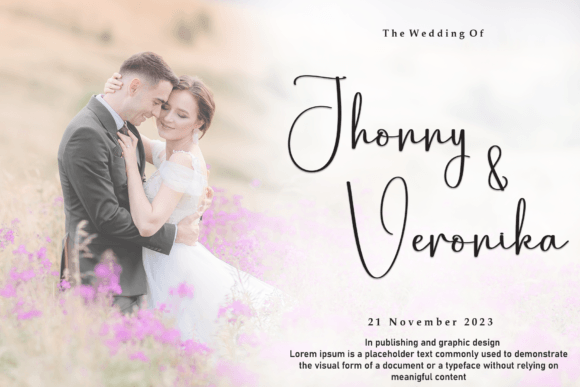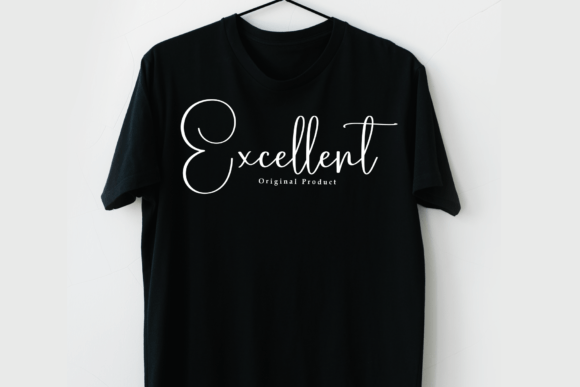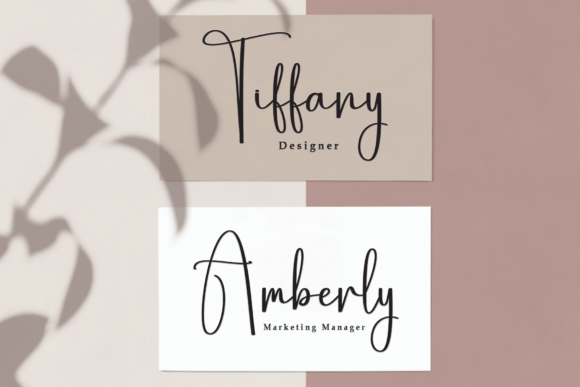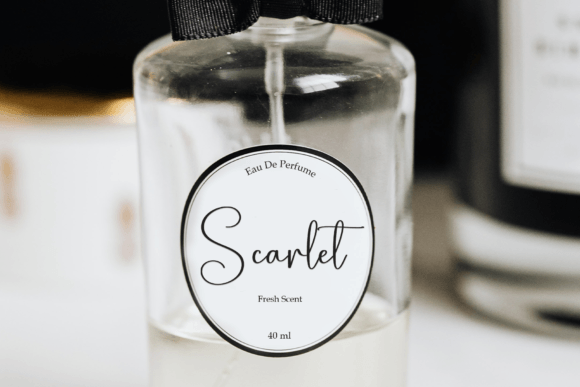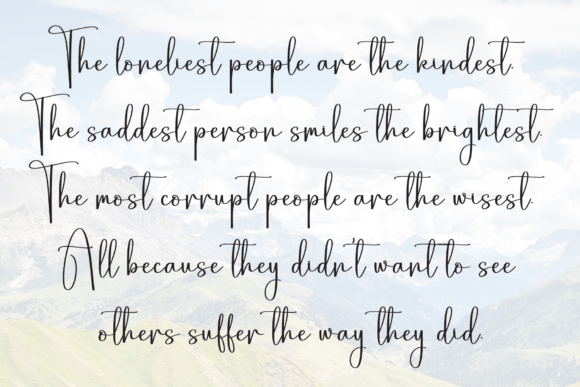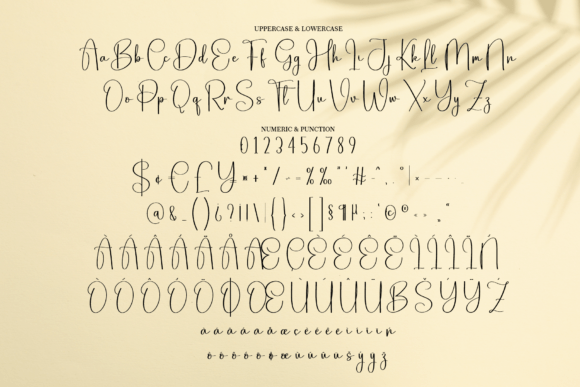
The Perfect Signature: Elevating Your Design with the Best Signature Font
Have you ever stared at a blank page, trying to find the perfect font to match your creative vision? That’s where the magic happens – and for designers, finding the right font can be a game-changer. For me, it was the moment I stumbled upon the Best Signature Font, and I knew I had found my new go-to.
This elegant and sophisticated font is designed to emulate the look and feel of a personal signature, adding a touch of professionalism and refinement to any project. Whether you’re creating logos, invitations, or branding materials, the Best Signature Font exudes confidence and class, making it a valuable addition to any designer’s toolkit.
Key Features of “Best Signature Font”
- Unique characteristic: Handwritten, cursive script with a touch of elegance and sophistication, making it perfect for personal and professional signatures.
- Font family: Script, with a wide range of ligatures and connections to create a seamless, flowing effect.
- Comes with a complete character set, including uppercase and lowercase letters, numbers, and punctuation marks.
Best Signature Font Review
I’ve been experimenting with the “Best Signature Font” and here’s my honest take on it.
- The font has a clean and modern design, making it perfect for personal signatures or business branding.
- The font may not be suitable for all audiences, as it has a relatively minimalist design that might not appeal to those who prefer more dramatic or ornate fonts.
- Some users may find the font too plain or boring, especially when compared to more elaborate font options.
Overall, I think the “Best Signature Font” is a solid choice for those looking for a clean and modern font for personal or business use. While it may not be the most exciting option, it’s a reliable and versatile font that can be used in a variety of contexts.